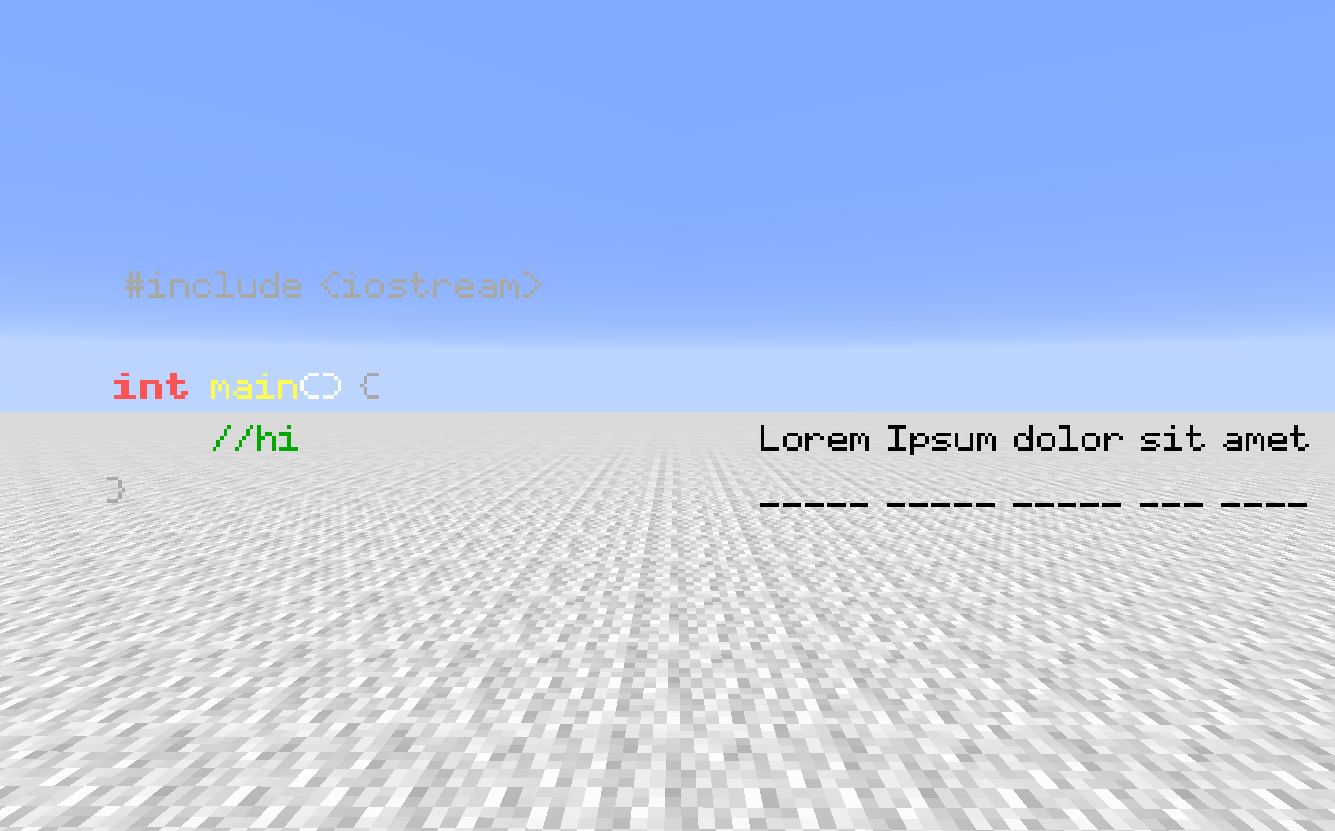
Monospace version of the Vanilla font.
Intended for use in programming for the most part
Note: Some things may look odd (like ') because to make them monospaced, you can't do an easy solution.
Additionally, ®, ≡, ⶩ, and ⶪ are special symbols that become programming language logos. (C, JS, C++, Python).